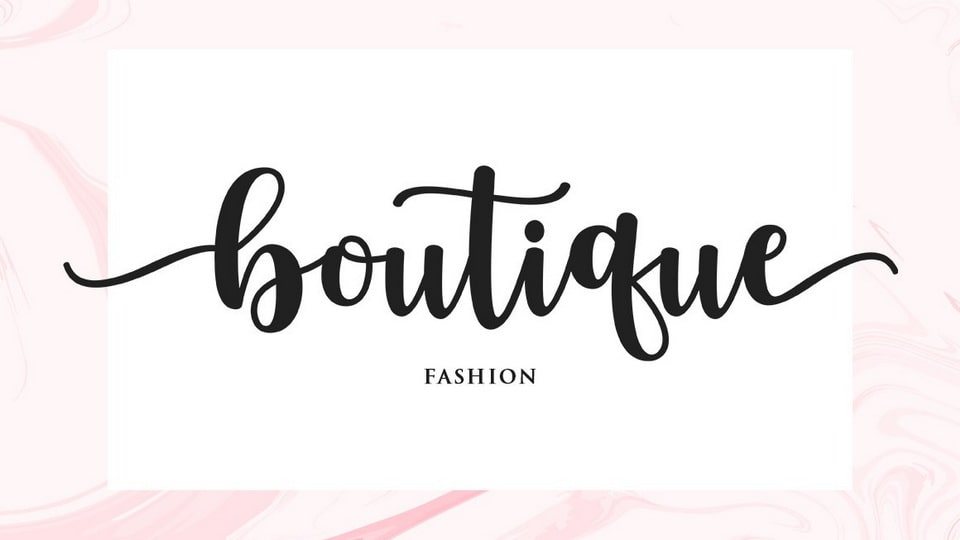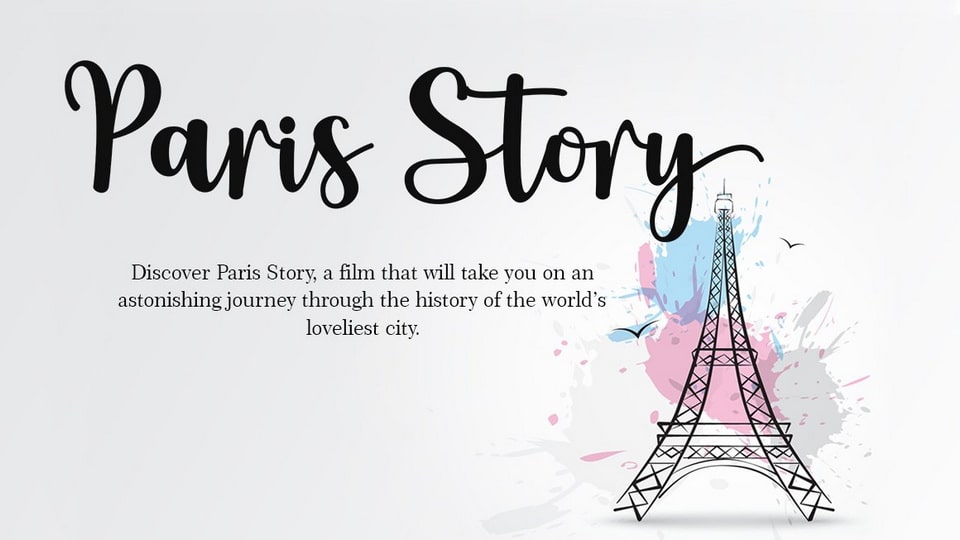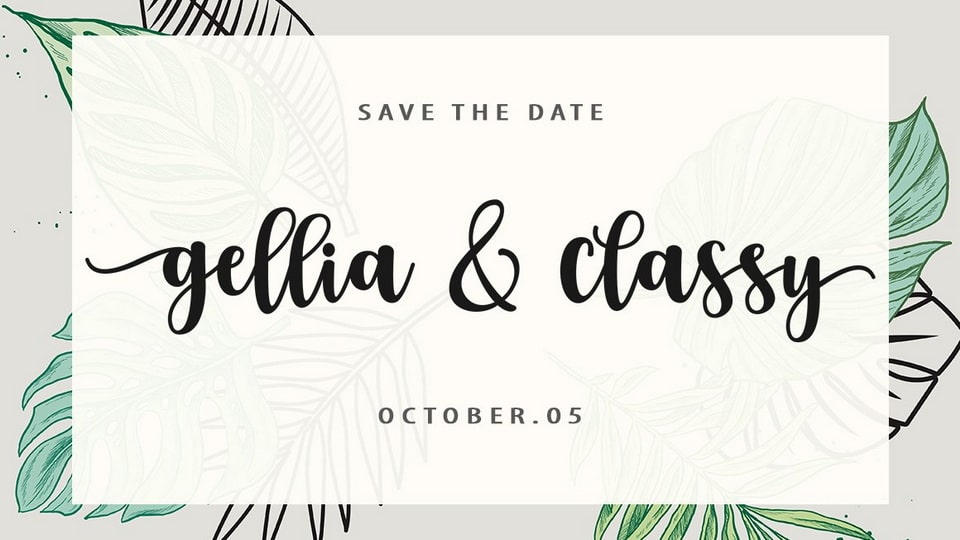
Angel Paradise is a stylish and incredibly elegant script font. It looks stunning on wedding invitations, thank you cards, quotes, greeting cards, logos, business cards and every other design which needs a handwritten touch.